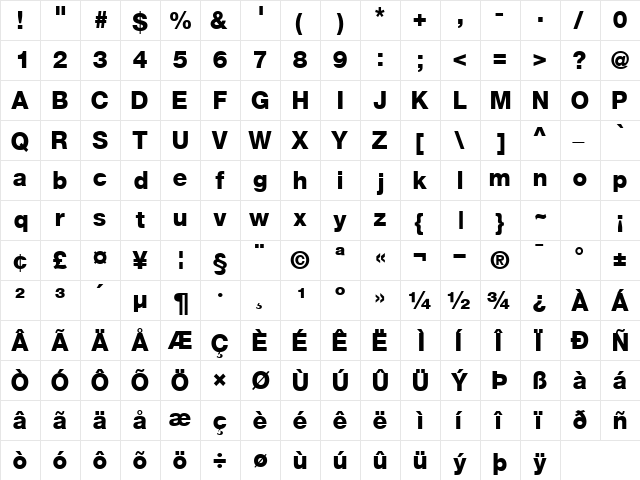
ContextRepriseBlackSSK Bold
Design Context for ContextRepriseBlackSSK Typeface
ContextRepriseBlackSSK is a composed and adaptable typeface that performs quietly and consistently across a wide range of design contexts. Its bold stroke weight gives it real presence on the page.